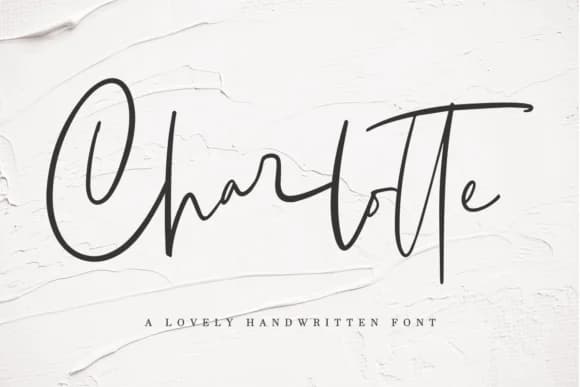
Charlotte Font by Geranium.co is a graceful handwritten script that brings authentic hand-lettered warmth to creative projects across multiple disciplines. The delicate letterforms flow naturally, creating an intimate visual identity that appeals to modern audiences while honoring timeless typographic traditions. This typeface proves particularly effective for wedding invitation suites where personal touches distinguish announcements in crowded inboxes, and for personalized stationery collections that require genuine character beyond mass-produced fonts.
The flowing stroke quality makes Charlotte an excellent choice for boutique beauty packaging that communicates artisanal values without appearing overly decorative or trendy. It performs equally well in custom social media graphics and hand-lettered greeting cards, where the gentle curves convey genuine warmth and individual attention to detail. The expansive character set and smart ligature support enable seamless integration across both digital and print applications, giving designers the flexibility to develop cohesive visual narratives that feel handmade.
Beyond commercial applications, Charlotte suits personal creative projects beautifully, from custom monogram designs to decorative signage for small retail environments. Each letter maintains the confident, personal quality that distinguishes genuine handwriting from mechanical reproduction, making it suitable for designers who prioritize authenticity. Add Charlotte Font to your Creative Fabrica library and bring handwritten authenticity to your creative work.
Charlotte Font is a script font that shines as a display or heading face. Pair it with a clean sans-serif or serif font for body text — the contrast creates a clear hierarchy while the two styles stay balanced and easy to read.
Charlotte Font